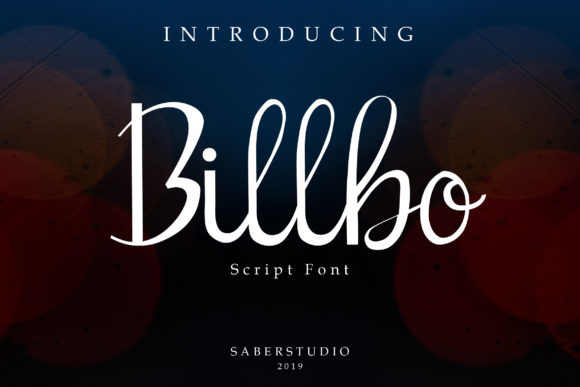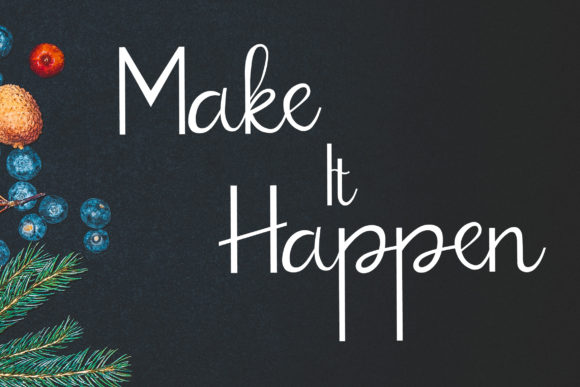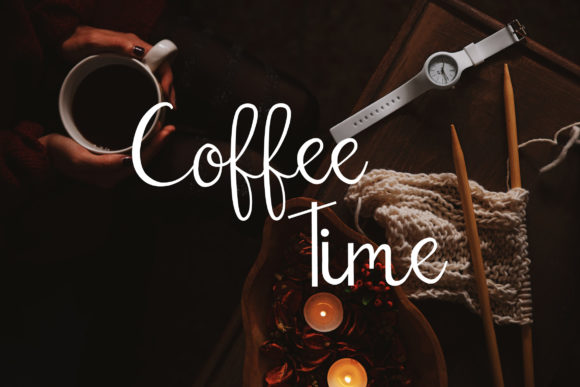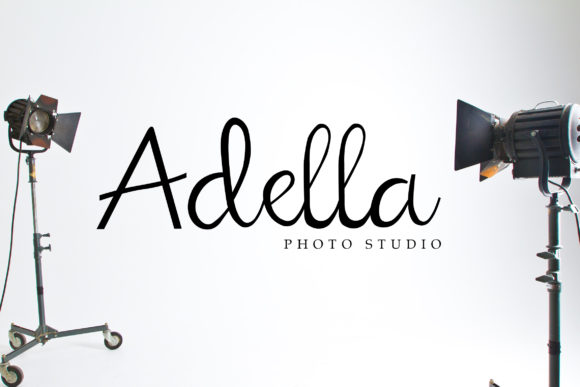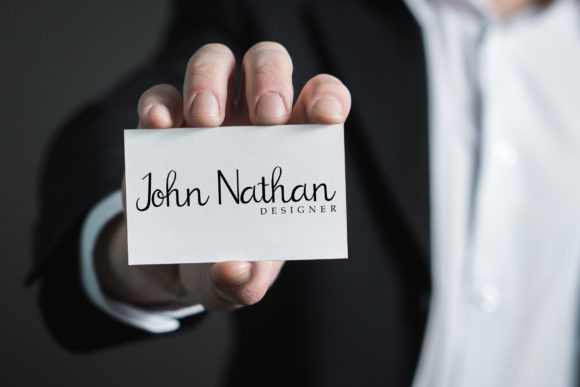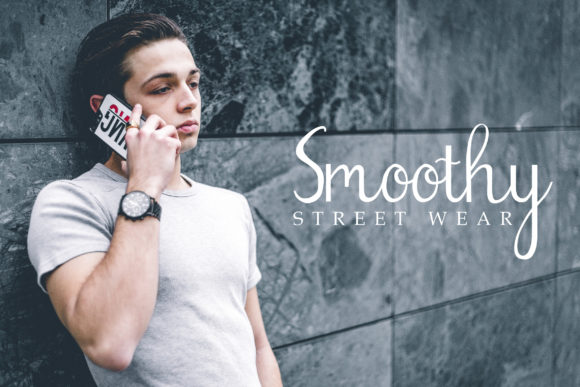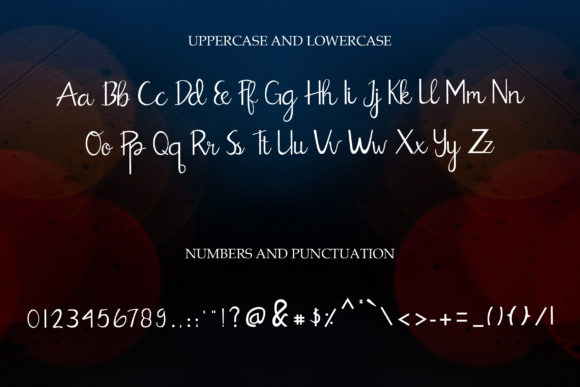
Billbo Script Font
About Billbo Script Font
The Billbo is an elegant script font. It can be used for logos, clothing, posters, business cards, quotes and others.